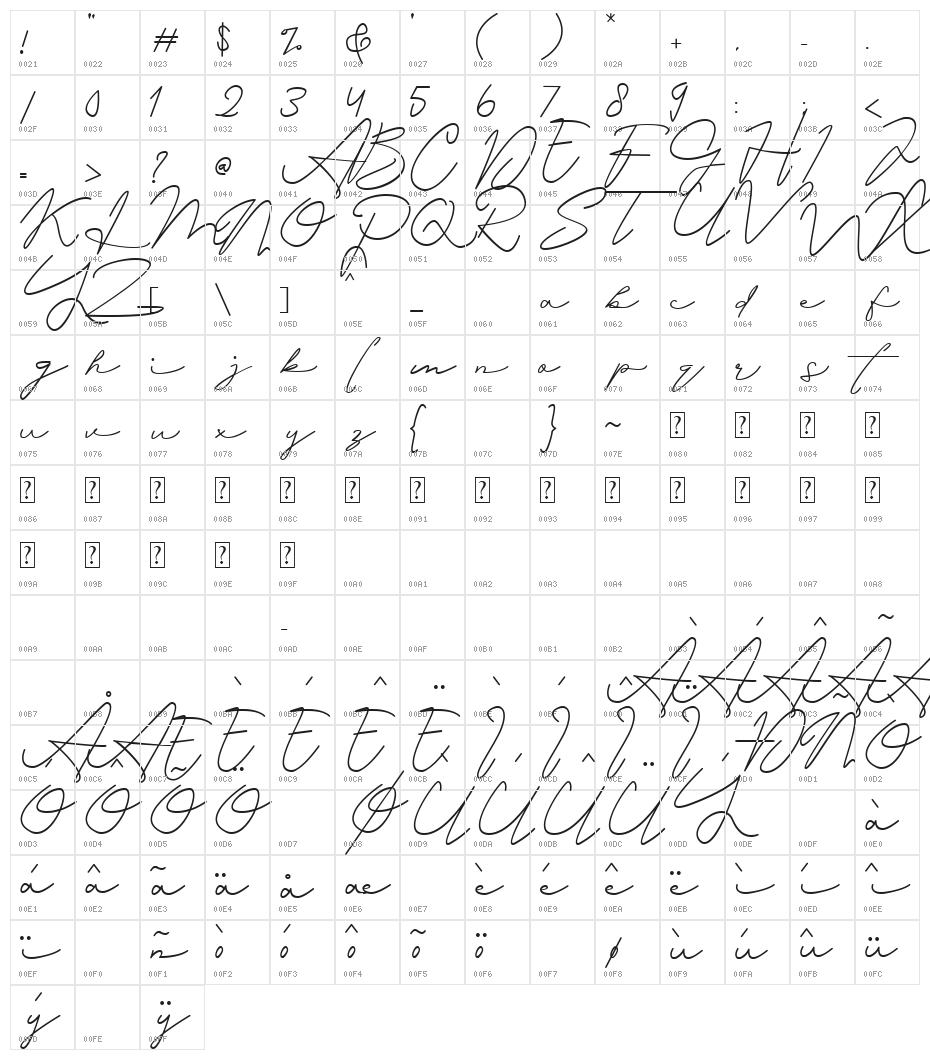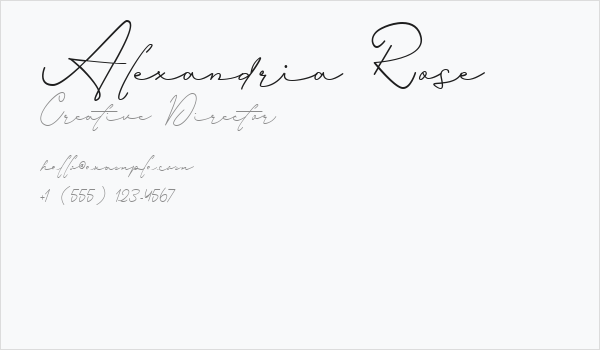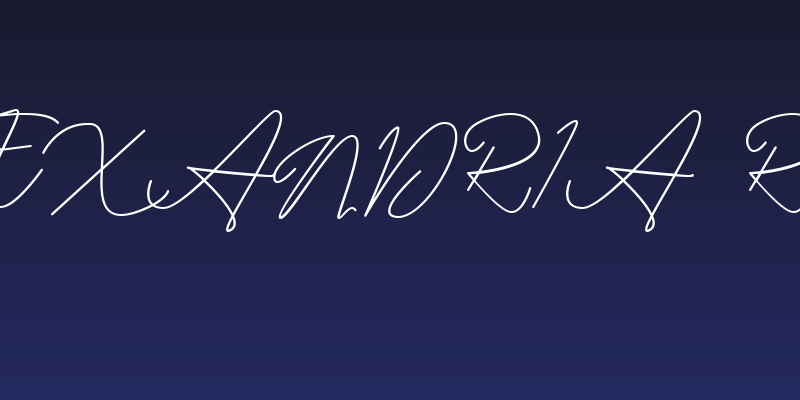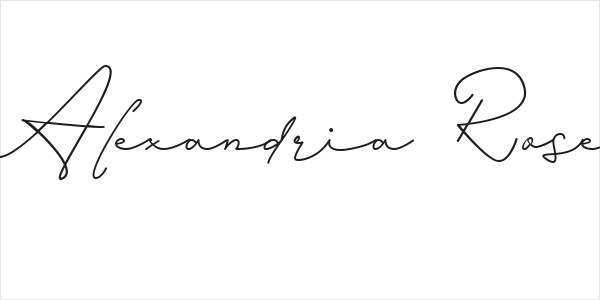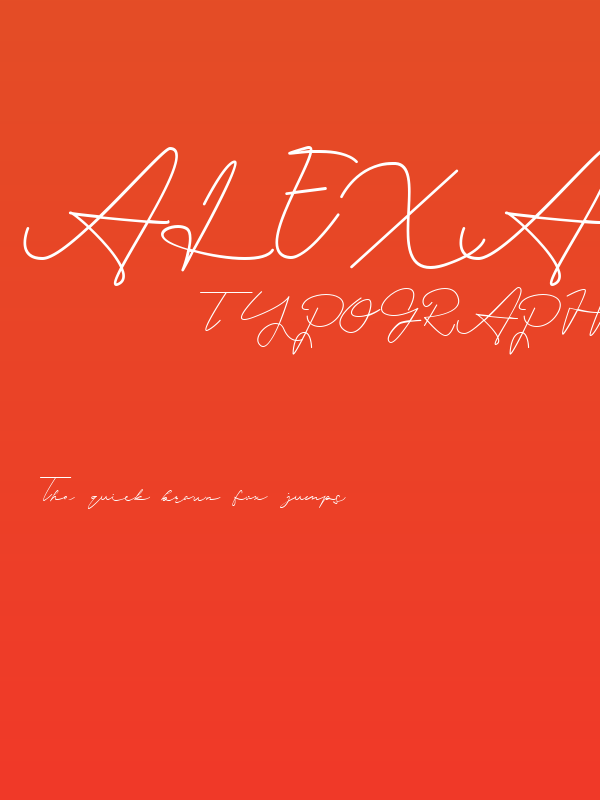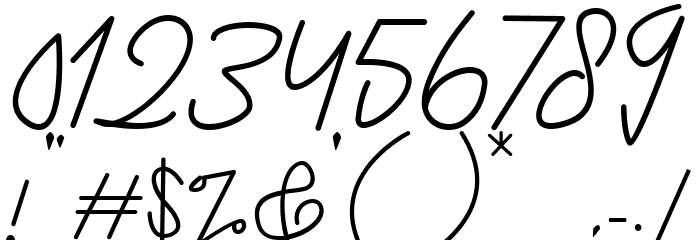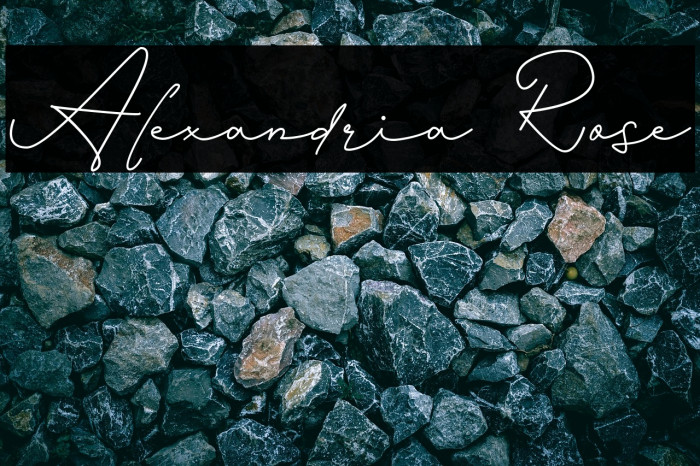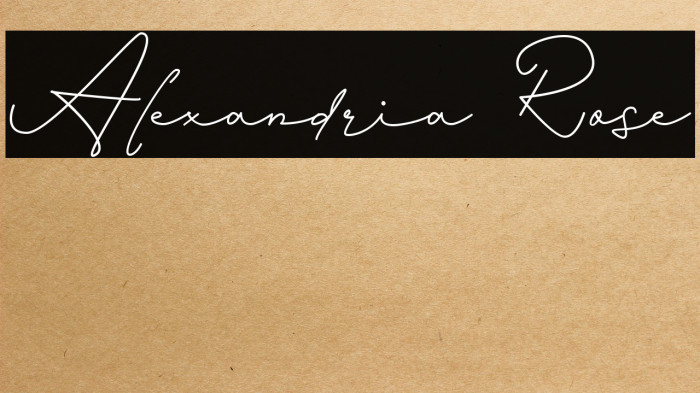
Alexandria Rose Font
Alexandria Rose Description
This font exudes elegance and fluidity, characterized by its cursive script style that mimics natural handwriting. The letters are connected, creating a seamless flow that enhances its sophisticated appearance. The uppercase letters maintain a consistent height, while the lowercase letters exhibit a gentle slant, adding to the font's graceful demeanor. The numerals are distinct yet harmonious with the overall script style, and the special characters are thoughtfully designed to complement the alphabet. This font's delicate strokes and smooth curves make it ideal for projects that require a touch of refinement and personal flair.